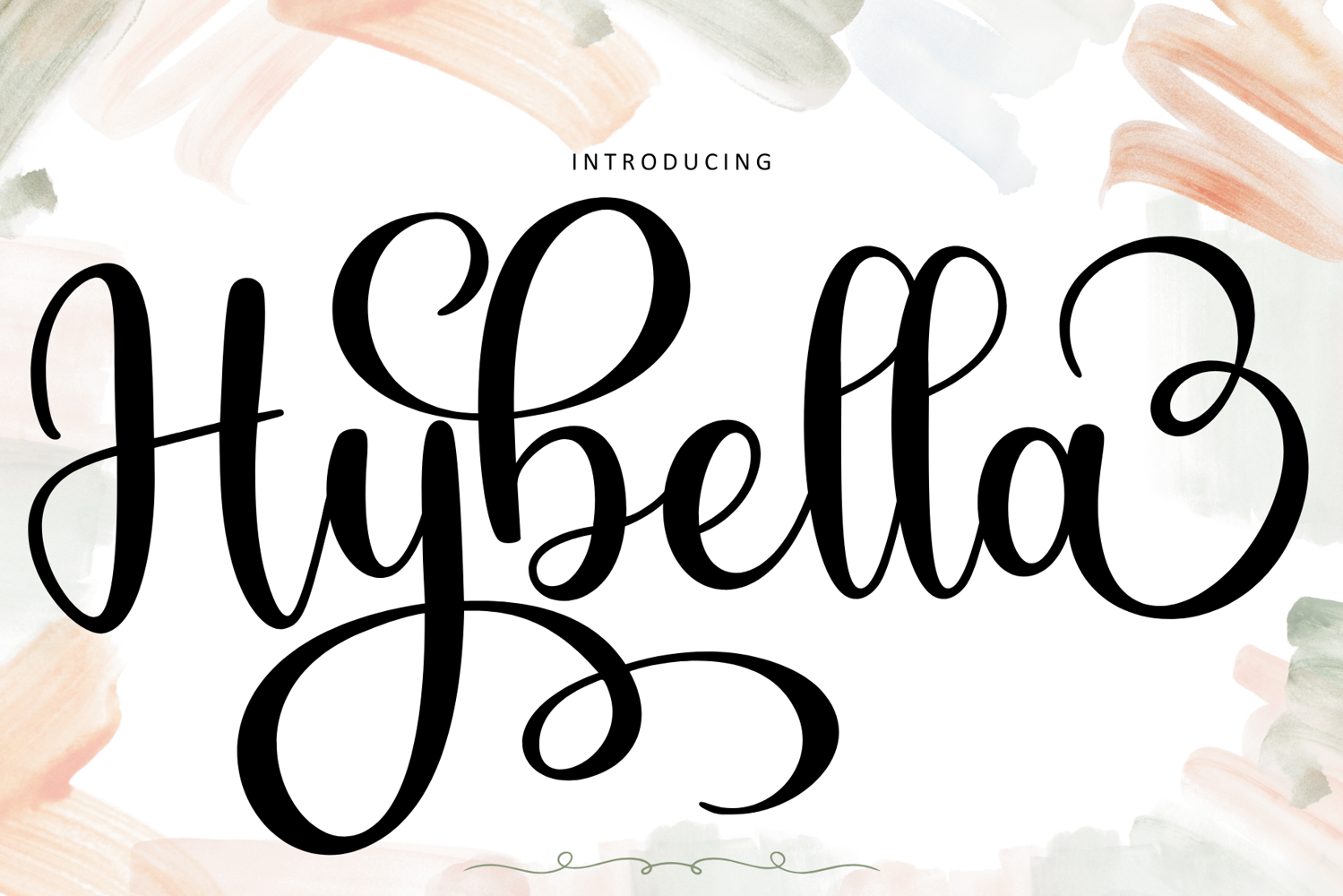
Hybella
Hybella is a modern script font with an elegant touch and smooth, flowing strokes. Designed with soft curves and expressive letterforms, it brings a luxurious yet warm and approachable feel to any design.